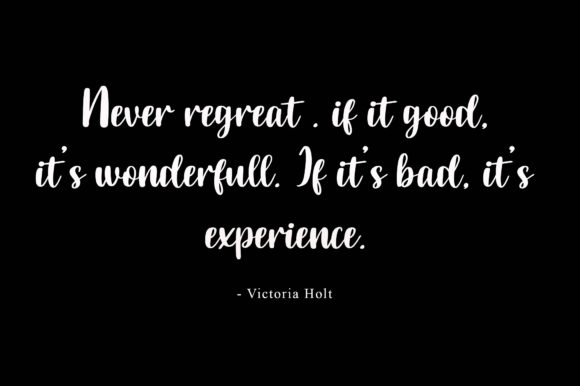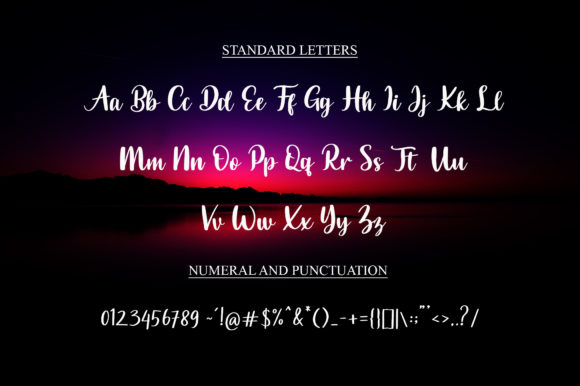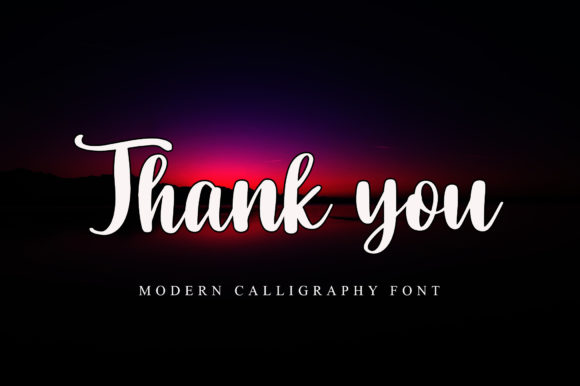
Introduction to Rainbow Cute Font Font
Fonts play a crucial role in design, and the Rainbow Cute Font font is a typeface that brings both character and versatility to any project. Whether you’re working on a branding project, a website, or a print design, the Rainbow Cute Font font offers a unique style that can elevate your work.
Rainbow Cute is a sweet, all round and flexible handwritten font.
Warm, romantic and jolly, this font will turn each of your project ideas into real works of art Have fun with this beautiful font and explore its endless variations.
Key Features of Rainbow Cute Font Font
Why Choose Rainbow Cute Font Font?
The Rainbow Cute Font font is more than just a typeface – it’s a design tool that helps you communicate your message with style and clarity. Its unique character set and versatile design make it suitable for a wide range of applications, from elegant invitations to bold headlines.
With its carefully crafted letterforms and balanced proportions, the Rainbow Cute Font font ensures readability and visual appeal across all mediums.
What makes Rainbow Cute Font font special?
The Rainbow Cute Font font stands out with its unique design, exceptional readability, and versatility across various design applications.